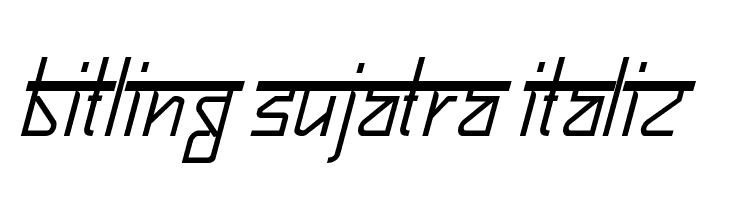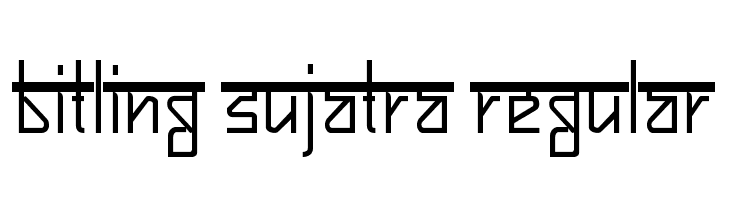
( Rajendra Bitling - www.rbitling.com )
A modern, angular font with a futuristic and bold design.
( Rajendra Bitling - www.rbitling.com )
An artistic italic font with flowing, interconnected letterforms and decorative flair.
( Rajendra Bitling - www.rbitling.com )
A decorative font with ornate, culturally influenced letterforms and intricate details.
( Fonts by Rajendra Bitling )
A bold, decorative font with whimsical and ornate details.
( Fonts by Rajendra Bitling )
A bold, italicized decorative font with playful curves and artistic flair.
( Fonts by Rajendra Bitling )
A decorative, musical-themed italic font with playful, artistic details.
( Fonts by Rajendra Bitling )
A decorative and ornate font with whimsical embellishments.
( Rajendra Bitling - www.rbitling.com )
A Gothic-inspired font with sharp, angular strokes and high contrast.
( Rajendra Bitling - www.rbitling.com )
A bold, gothic-inspired font with intricate, decorative characters.
( Rajendra Bitling - www.rbitling.com )
A bold, italic script font with elegant, flowing letterforms.